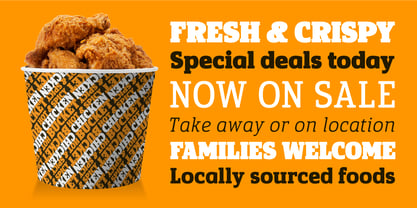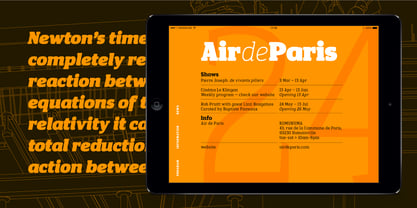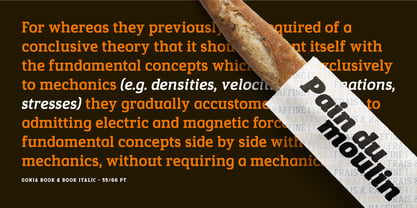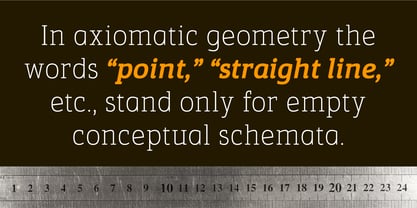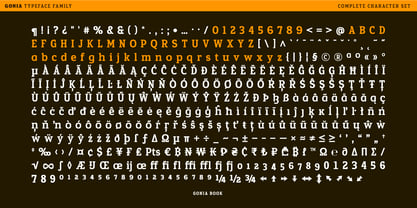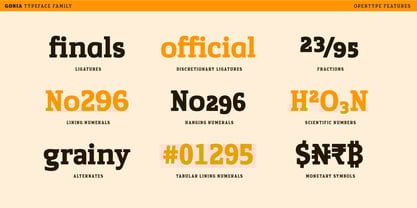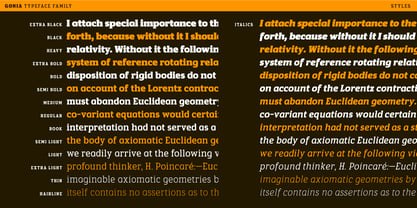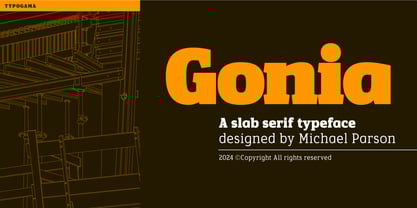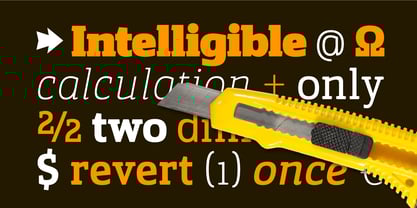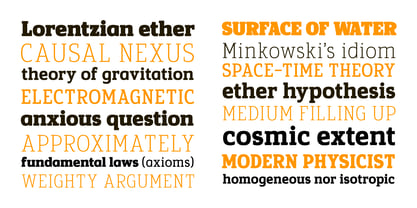
Gonia
Gonia is a slab-serif typeface family designed to function at all sizes. With a large range of weights, this family remains functional and legible in small sizes while its use in larger point sizes reveals the finer details of the letter forms. The very heavy Black weight can attract attention, the lighter weights provide a more balance reading experience and the inclusion of a real italic form allows a visual distinction between the roman or italic form. It includes a series of Opentype features and an extended character set that covers most european languages.